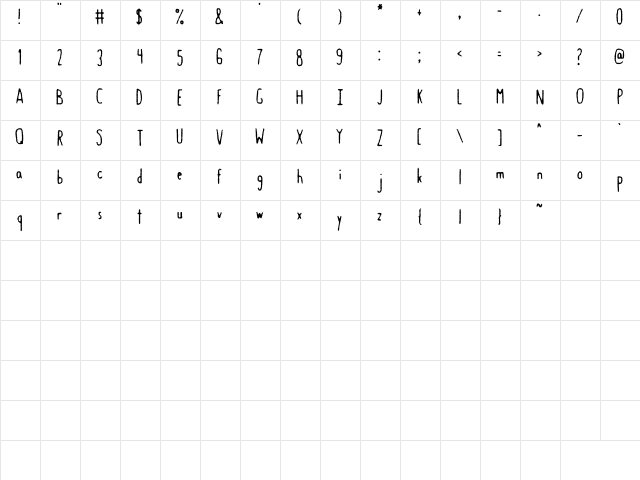
Gastro Intestinal Confluent Regular
| Foundry | Lauren C. Brown |
| Designer | Lauren C. Brown |
Design Context for Gastro Intestinal Confluent Typeface
Gastro Intestinal Confluent is a composed and adaptable typeface that performs quietly and consistently across a wide range of design contexts.